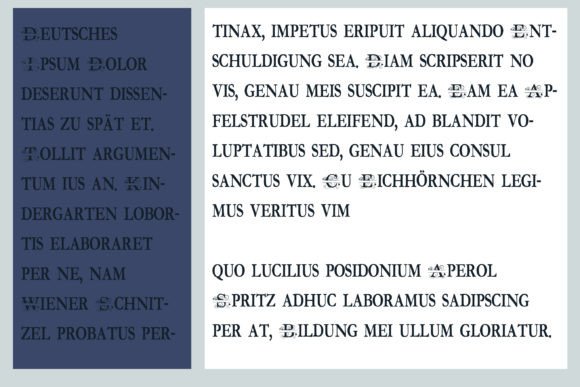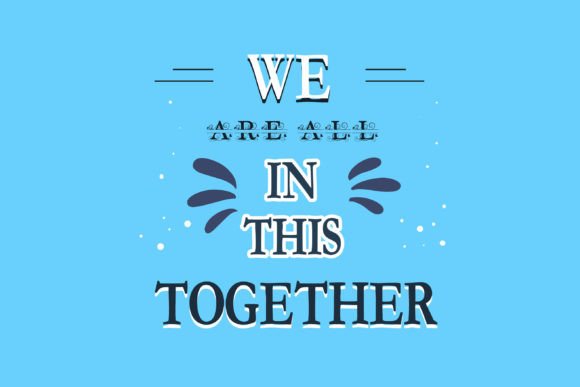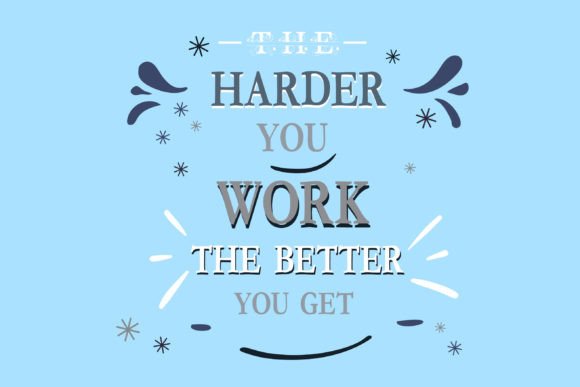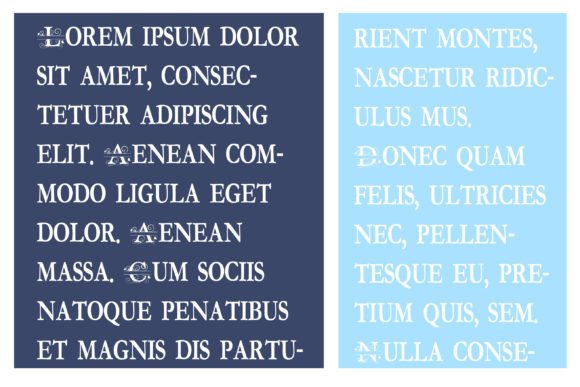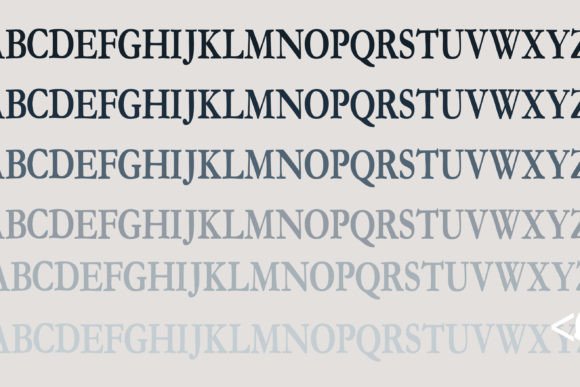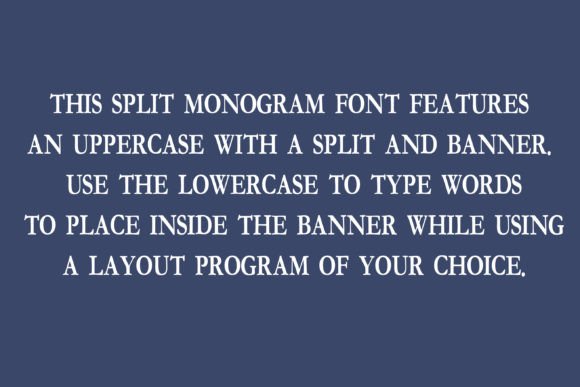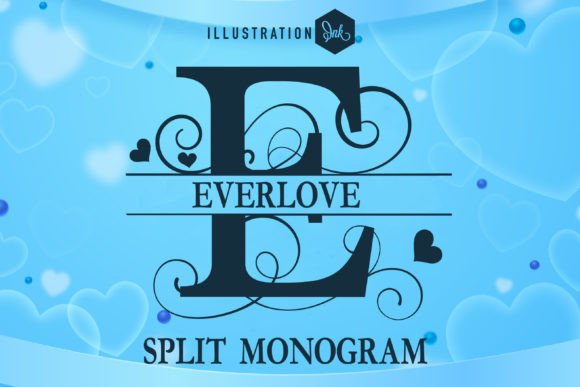
Introducing Everlove Split Monogram Font: Elevate Your Creations with Elegance
In the world of design, fonts play a crucial role in conveying messages, expressing emotions, and adding personality to creations. For designers, crafters, and DIY enthusiasts, having a versatile and stylish font in their library can make all the difference. This is where the Everlove Split Monogram Font comes in – a unique and elegant font that is sure to elevate any project. In this article, we’ll explore the features, benefits, and uses of this incredible font.
What is Everlove Split Monogram Font?
The Everlove Split Monogram Font is a specially designed font that features an uppercase with a split banner. This distinctive design allows users to type words or phrases inside the banner using the lowercase letters, while the uppercase letters form the outer monogram. This split design creates a beautiful, eye-catching effect that can add a touch of sophistication to any creation.
Key Features of Everlove Split Monogram Font
- Split Monogram Design: The font features a unique split monogram design, where the uppercase letters form the outer monogram and the lowercase letters create the inner banner.
- Uppercase and Lowercase Letters: The font includes both uppercase and lowercase letters, allowing users to create a wide range of designs and combinations.
- Compatible with Layout Programs: The Everlove Split Monogram Font is compatible with various layout programs, making it easy to use and edit.
- Versatile and Elegant: The font’s elegant design and versatility make it suitable for a wide range of projects, from crafting and DIY to professional design and branding.
Benefits of Using Everlove Split Monogram Font
The Everlove Split Monogram Font offers several benefits to designers, crafters, and DIY enthusiasts. Some of the advantages of using this font include:
- Ease of Use: The font is easy to use and edit, making it accessible to users of all skill levels.
- Time-Saving: The font’s unique design saves time and effort, as users can create professional-looking designs without extensive editing.
- Customization: The font’s compatibility with various layout programs allows for endless customization options.
- Unique Designs: The Everlove Split Monogram Font enables users to create unique and eye-catching designs that stand out from the crowd.
Uses of Everlove Split Monogram Font
The Everlove Split Monogram Font is an incredibly versatile font that can be used in a wide range of projects, including:
- Crafting and DIY: The font is perfect for crafters and DIY enthusiasts who want to add a personal touch to their projects, such as signs, banners, and cards.
- Graphic Design: The font is ideal for graphic designers who need a elegant and sophisticated font for branding, logos, and marketing materials.
- Wedding and Event Planning: The font’s romantic and elegant design makes it suitable for wedding and event planning, such as invitations, decorations, and signage.
- Stationery and Paper Crafts: The font is perfect for creating beautiful stationery, cards, and paper crafts.
In conclusion, the Everlove Split Monogram Font is an exceptional addition to any design library. Its unique split monogram design, ease of use, and versatility make it an ideal font for designers, crafters, and DIY enthusiasts. Whether you’re working on a crafting project, designing a logo, or planning an event, this font is sure to elevate your creations with elegance and sophistication. With its endless customization options and compatibility with various layout programs, the Everlove Split Monogram Font is a valuable asset that will inspire creativity and take your designs to the next level.